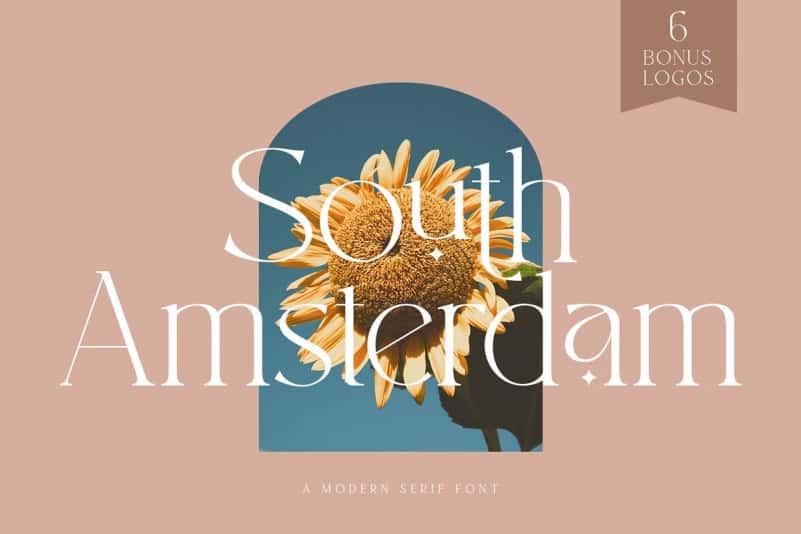
South Amsterdam Font
South Amsterdam Serif Font is where the best of both worlds meet – an edgy display letter yet easily legible and appropriate for a wide range of use cases. Amsterdam with a modern serif style and a modern handwritting style with the addition of Premade logos & vector logos. the perfect mix for magazine, logo, invitations, product designs, and more.